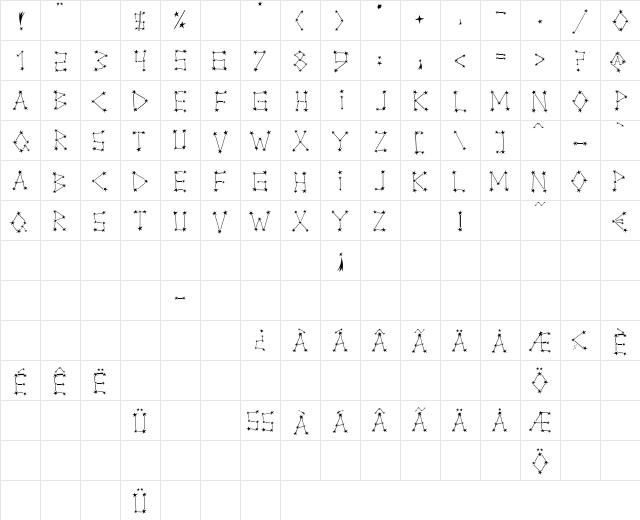
Milky Way Regular
Design Context for Milky Way Typeface
Milky Way is a composed and adaptable typeface that performs quietly and consistently across a wide range of design contexts.